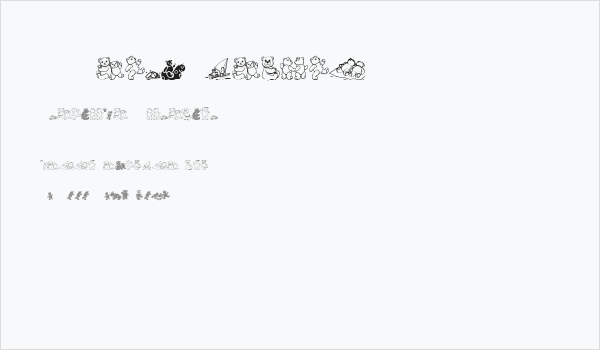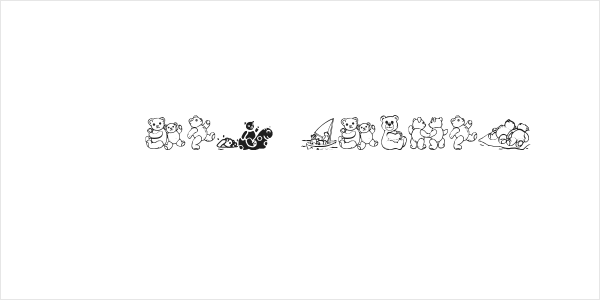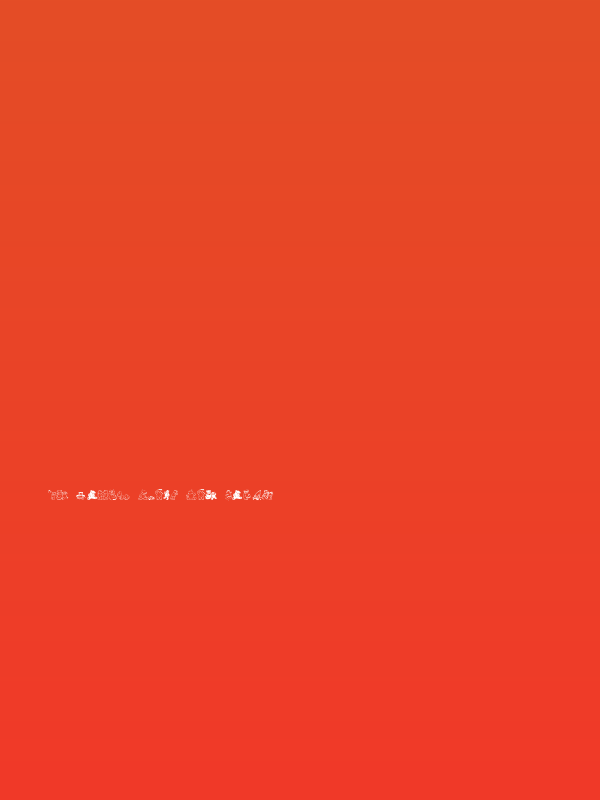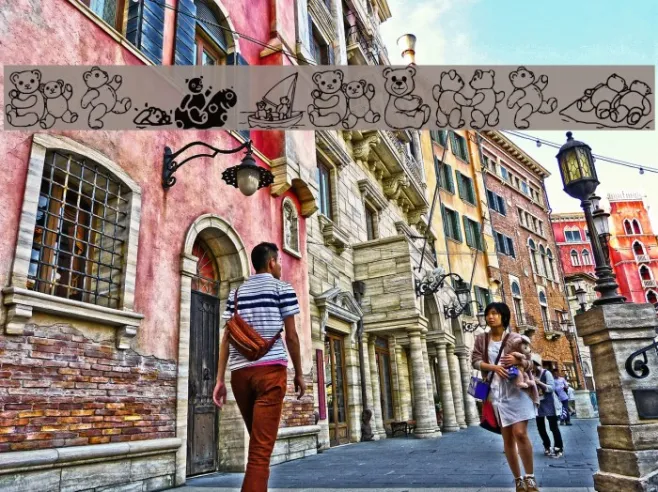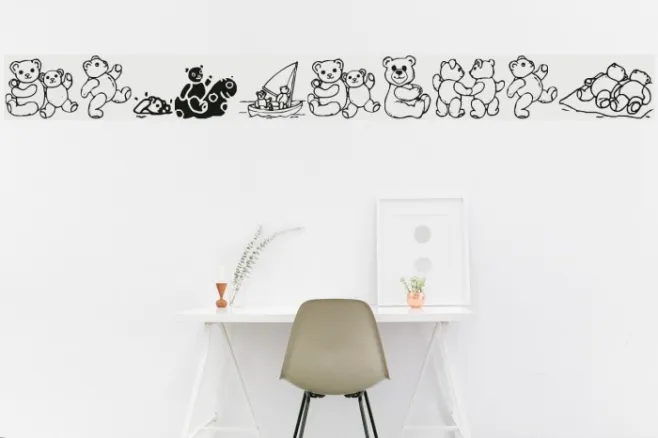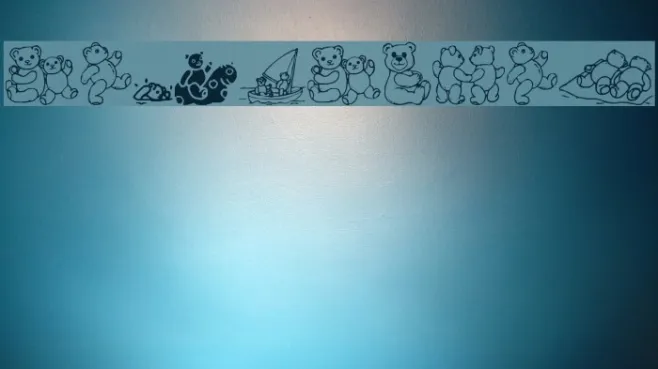
WWBearySpecial Font
WWBearySpecial Description
A playful decorative font featuring hand-drawn teddy bear illustrations in place of standard alphanumeric and symbol characters. Each character is uniquely represented by a different bear or bear scene, with both outlined and filled styles, evoking a whimsical and childlike feel.
| Overall Style | Playful, Whimsical, Childlike |
| Use Case | Logos, Headlines, Themed graphics, Children’s materials |
| Proposed Projects | Children’s books, birthday invitations, playful posters, toy packaging, nursery decor. |